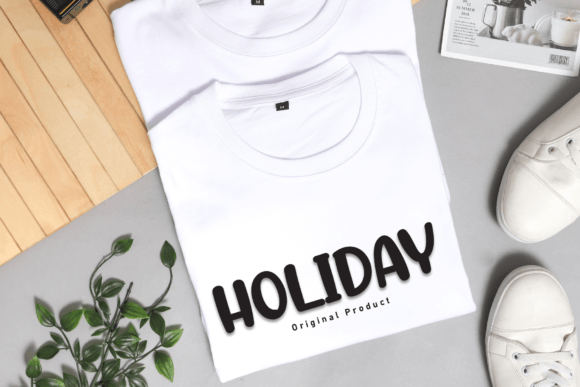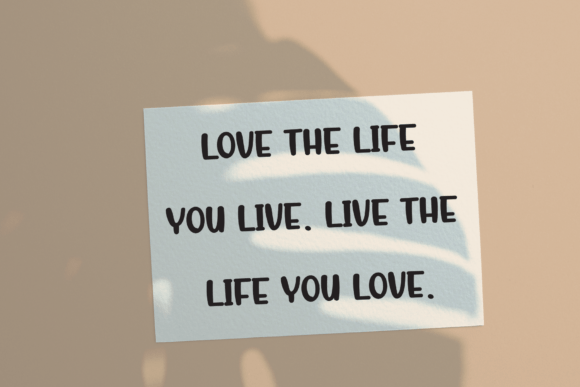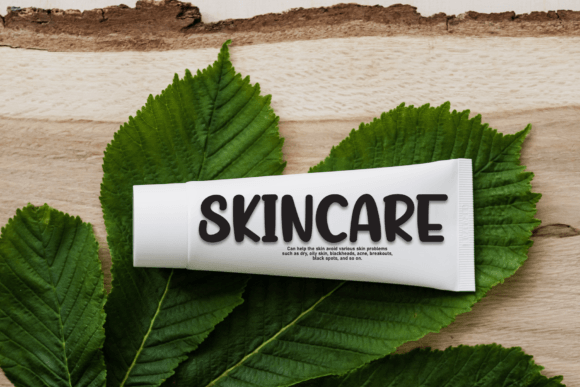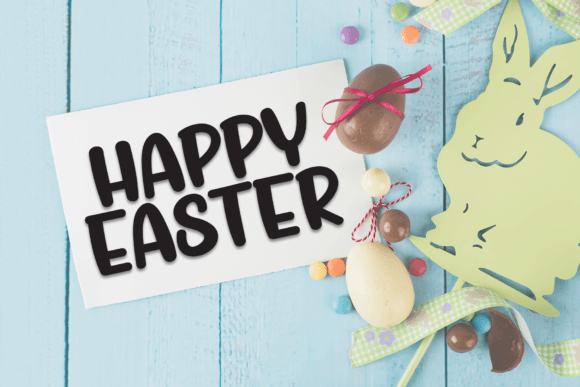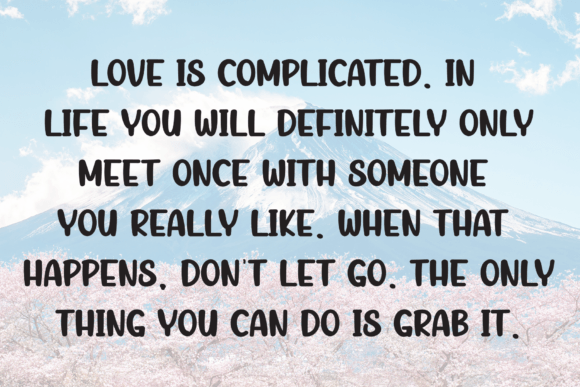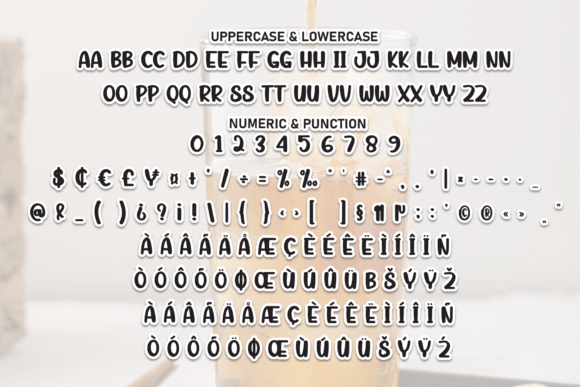
Introducing Drink Font: The Perfect Blend of Sophistication and Cheerfulness
Are you tired of using the same old fonts in your designs? Look no further! We’re excited to introduce Drink Font, a delightful handwritten display font that brings a sweet and friendly aura to any project. With its cute and fun personality, this typographic gem is sure to uplift your designs and captivate your audience.
The Perfect Choice for Heartwarming Designs
Drink Font is the go-to choice for crafting heartwarming wedding invitations, cards, or any design that craves a playful yet polished touch. Its exceptional charm is designed to paint every word with an irresistible appeal that will leave a lasting impression on your audience. Whether you’re a designer, crafter, or DIY enthusiast, this font is sure to become your new favorite.
What Sets Drink Font Apart
So, what makes Drink Font so special? Here are just a few features that set it apart from other fonts:
- Handwritten display font: Drink Font is a carefully crafted handwritten display font that exudes a sense of warmth and personality.
- Sweet and friendly aura: This font is bathed in a sweet and friendly aura that makes it perfect for designs that require a playful yet polished touch.
- Cute and fun personality: Drink Font has a cute and fun personality that is sure to uplift your designs and make them more engaging.
- Playful yet polished: This font strikes the perfect balance between playfulness and polish, making it suitable for a wide range of designs.
Use Drink Font for a Variety of Designs
Drink Font is versatile and can be used for a variety of designs, including:
- Wedding invitations: Add a touch of elegance and whimsy to your wedding invitations with Drink Font.
- Cards: Whether it’s a birthday, anniversary, or get-well card, Drink Font is the perfect choice for adding a personal touch.
- Social media graphics: Use Drink Font to create eye-catching social media graphics that will help your brand stand out.
- Logos and branding: This font is also suitable for logos and branding, adding a touch of personality to your brand’s identity.
Why Choose Drink Font?
With so many fonts to choose from, why should you choose Drink Font? Here are just a few reasons:
- Unique and eye-catching: Drink Font is a unique and eye-catching font that will help your designs stand out from the crowd.
- Easy to read: Despite its playful nature, Drink Font is easy to read, making it suitable for a wide range of designs.
- Customizable: This font is highly customizable, allowing you to adjust the size, color, and style to suit your design needs.
Get Ready to Fall in Love with Drink Font
In conclusion, Drink Font is a typographic gem that is sure to uplift your designs with its cute and fun personality. With its sweet and friendly aura, playful yet polished touch, and versatility, this font is perfect for a wide range of designs. Whether you’re a designer, crafter, or DIY enthusiast, Drink Font is a must-have font that will help you create heartwarming and engaging designs that will leave a lasting impression on your audience.